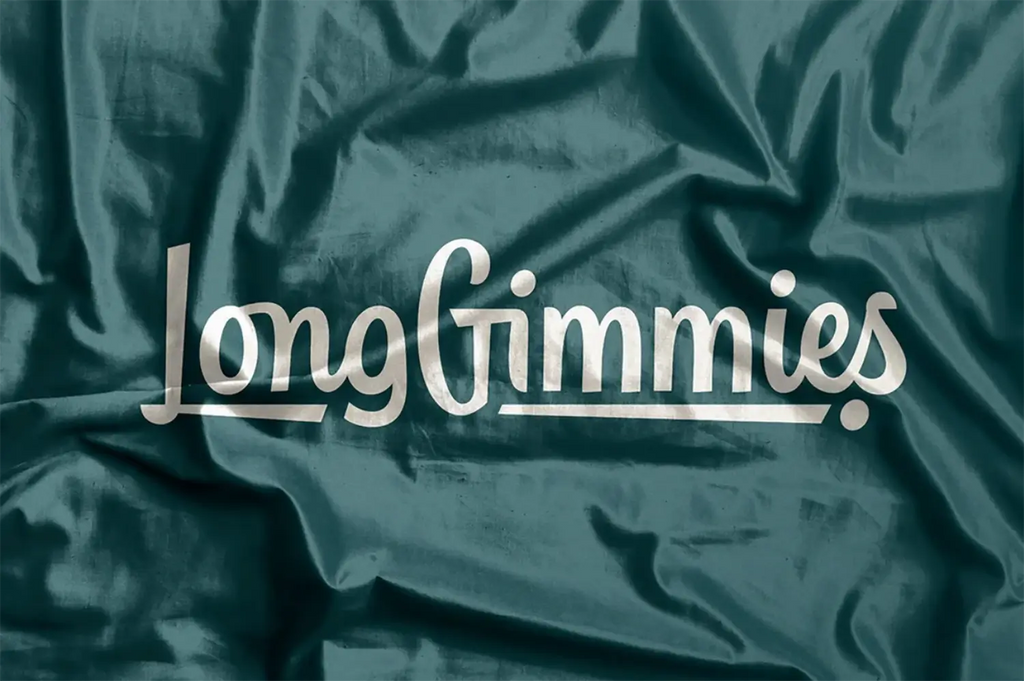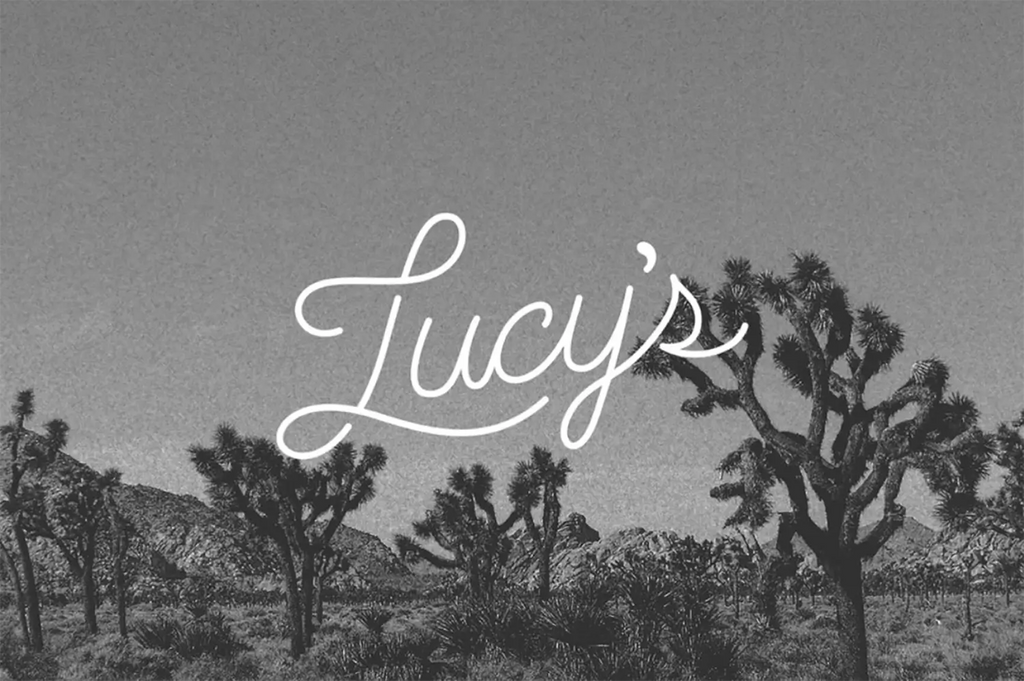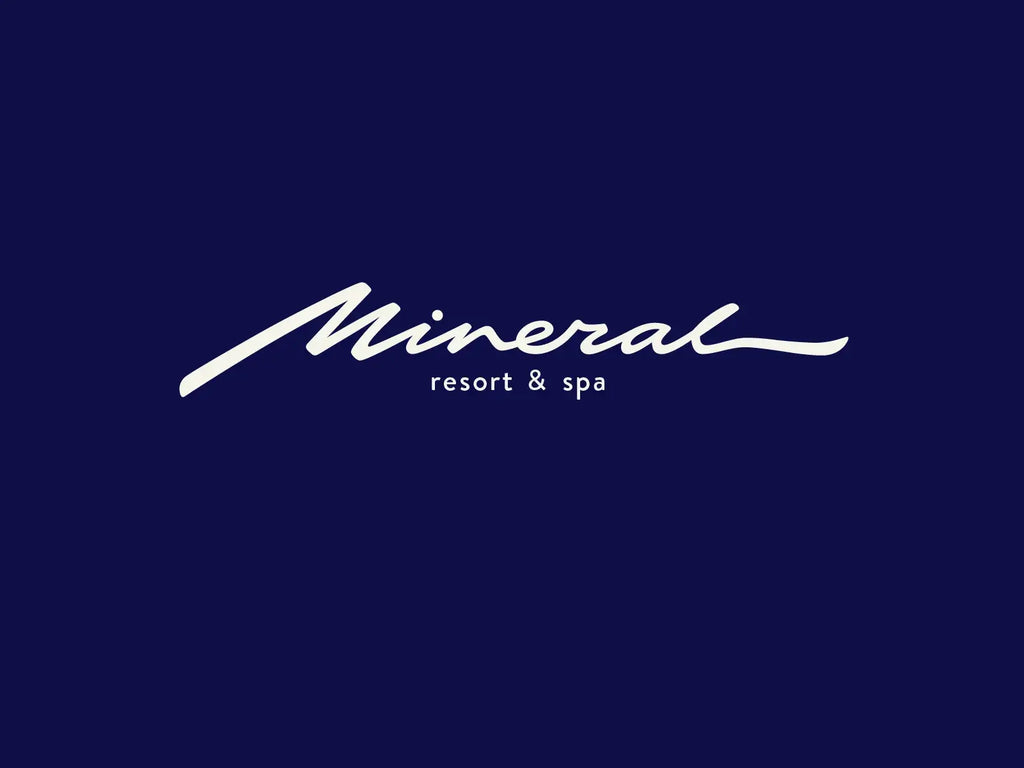
Discovering The Benefits of Handwriting Fonts For Logo Designs
Typography plays a major role in shaping how people perceive a brand, and few styles create an immediate sense of personality quite like handwriting fonts. Unlike traditional typefaces that often feel structured and standardized, handwritten lettering introduces a more personal and human element to visual identity. It can make a brand feel approachable, creative, authentic, or even exclusive depending on the style chosen. The popularity of handwriting fonts logo design continues to grow because many businesses want to create stronger emotional connections with their audiences. Consumers are constantly exposed to polished corporate branding, making handmade visual elements feel refreshing and memorable. A well-chosen handwritten logo can communicate character before a customer reads a single word about the company. From boutique businesses and creative studios to personal brands and artisan products, handwriting fonts offer unique opportunities for differentiation. Understanding their strengths can help designers and business owners make smarter branding decisions while creating logos that feel both distinctive and meaningful.
Understanding What Makes Handwriting Fonts Unique In Logo Design
The Human Touch Behind Handwritten Typography
Handwriting fonts are designed to replicate the appearance of letters created by hand. Unlike geometric or highly structured typefaces, they often include subtle inconsistencies in stroke width, spacing, and letter shape. These imperfections create a sense of authenticity that digital fonts sometimes struggle to achieve. People naturally associate handwritten communication with personal interaction. Because of this, handwritten typography can feel more welcoming and relatable than highly formal lettering. Even small details such as uneven curves or natural pen-like strokes contribute to a more human visual experience.
Different Styles Of Handwriting Fonts
Handwriting fonts are available in many forms. Casual handwritten fonts often feel friendly and informal. Script fonts introduce elegance and flow through connected letterforms. Signature-style fonts create a premium, personal appearance, while brush lettering delivers energy and creative expression. Each style communicates a different message, making font selection an important branding decision.
Why Brands Use Them Differently Than Traditional Fonts
Traditional serif and sans-serif fonts are often chosen for clarity, professionalism, and consistency. Handwriting fonts serve a different purpose. They emphasize personality and emotional appeal. In situations where authenticity and individuality are priorities, handwritten typography can create a stronger connection than more conventional type choices.
Creating A More Personal And Approachable Brand Identity
Making Customers Feel A Human Connection
One of the strongest advantages of handwriting fonts logo design is the ability to make a brand feel more human. Customers frequently engage with businesses through websites, social media profiles, packaging, and digital advertisements rather than face-to-face interactions. Handwritten typography can help bridge that gap. A logo that resembles personal handwriting suggests that real people stand behind the business. This subtle visual cue can encourage trust and familiarity, particularly for smaller companies and independent creators.
Communicating Brand Character More Naturally
Handwriting fonts allow brands to express personality in a direct and visual way. A playful handwritten logo may communicate friendliness and creativity. A refined signature-style logo can suggest sophistication and exclusivity. A brush-style logo may convey confidence and artistic energy. Because typography influences perception so quickly, the right handwritten font helps audiences understand the brand's character almost immediately.
Why Emotional Branding Matters
Many purchasing decisions are influenced by emotion rather than logic alone. Visual identity contributes significantly to those emotional responses. A handwritten logo can create warmth, comfort, and familiarity, making a brand feel more approachable and memorable. When used thoughtfully, handwriting fonts logo design becomes more than a stylistic choice. It becomes a tool for building stronger emotional relationships with customers.
Helping A Logo Stand Out In Competitive Markets
Breaking Away From Generic Typography Trends
Many industries rely heavily on similar design trends. Businesses often choose safe fonts because they appear professional and familiar. The downside is that many logos begin to look alike. Handwriting fonts provide an opportunity to introduce originality into a visual identity. Even subtle handwritten characteristics can make a logo feel different from competitors using standard typography.
Creating Stronger Brand Recall
Distinctive visual elements are easier for people to remember. Handwritten logos often contain unique curves, connections, and stroke patterns that create memorable visual signatures. When customers repeatedly encounter these distinctive details, brand recognition can improve over time. This increased recall becomes valuable in crowded marketplaces where consumers have many competing choices.
Supporting A Signature Brand Look
Many successful brands benefit from having a recognizable visual style. Handwritten typography can contribute to that goal by creating a logo that feels exclusive rather than generic. Even when the logo uses a commercially available font, careful selection can help establish a more distinctive brand presence. The result is a visual identity that feels intentional and recognizable across multiple platforms.